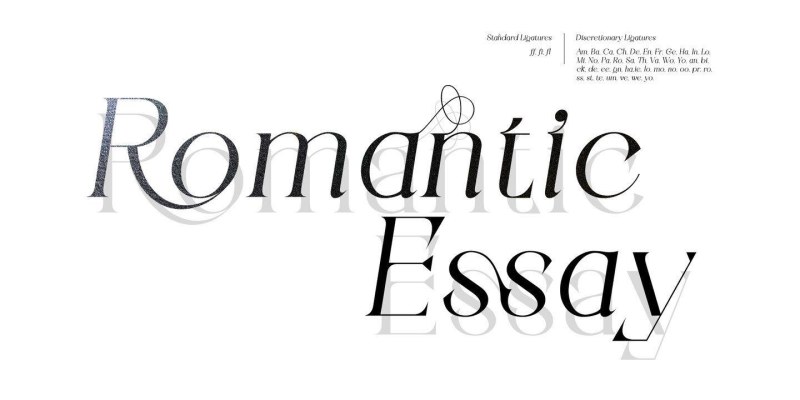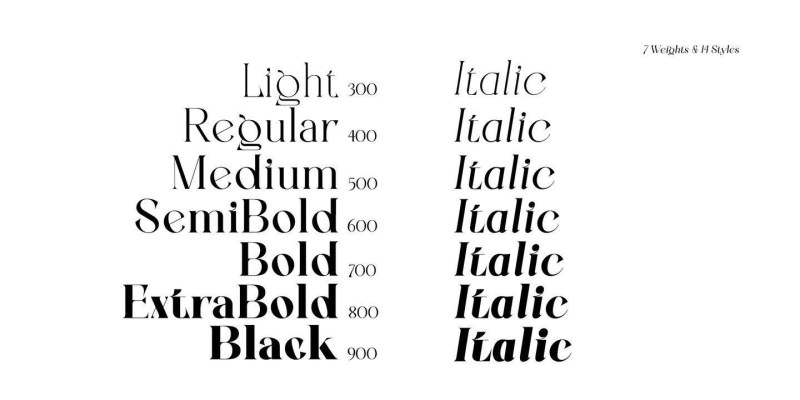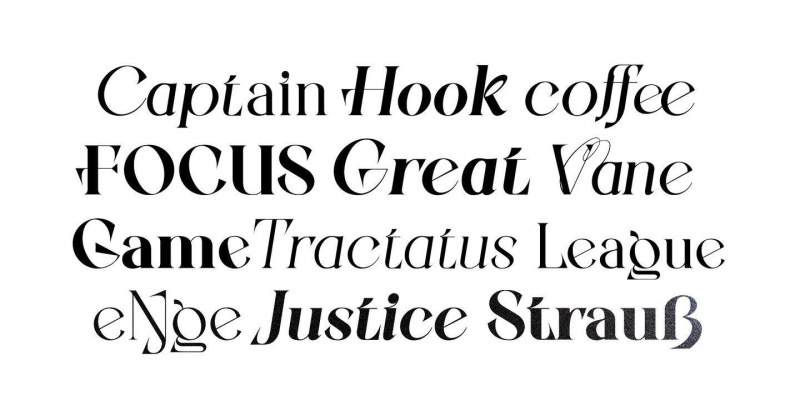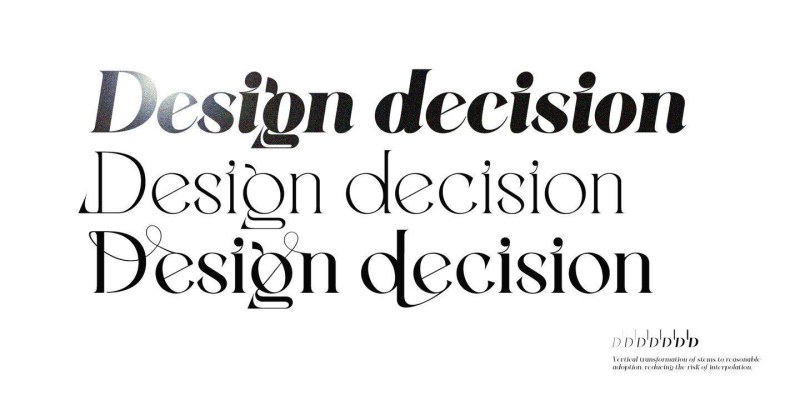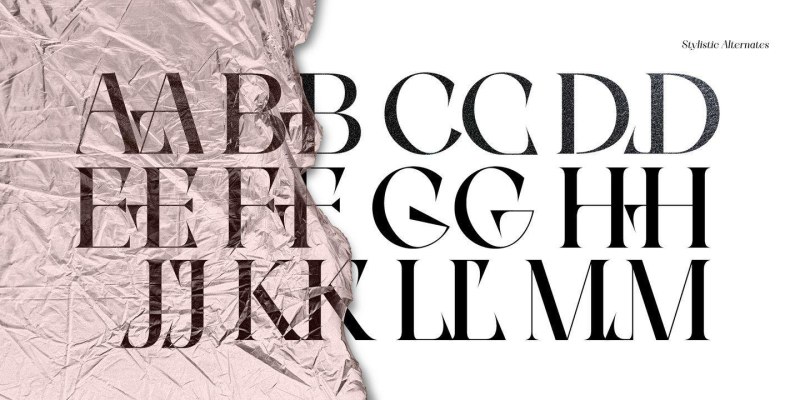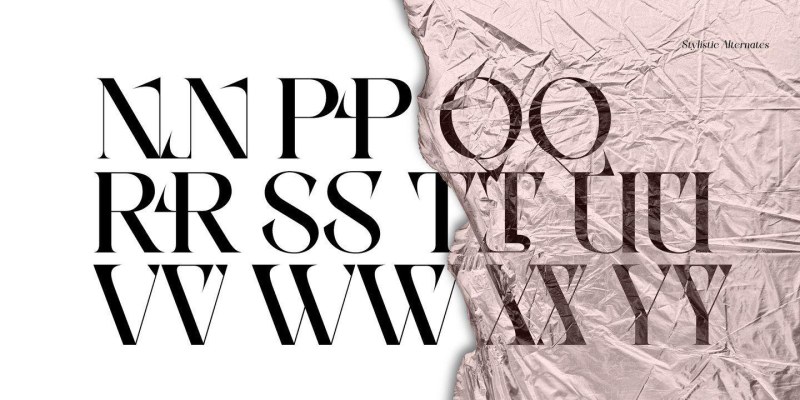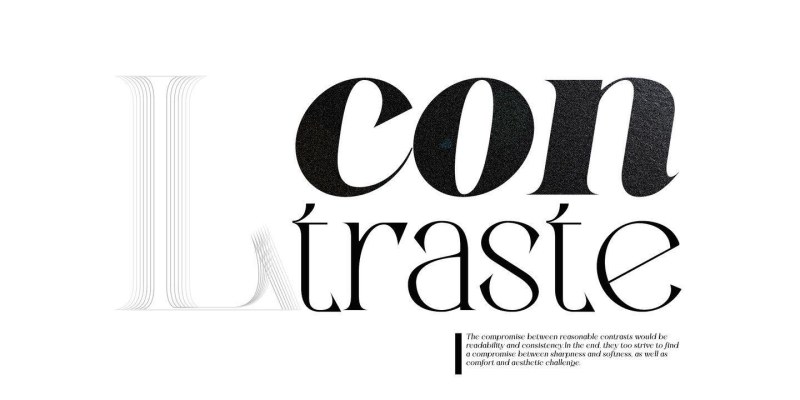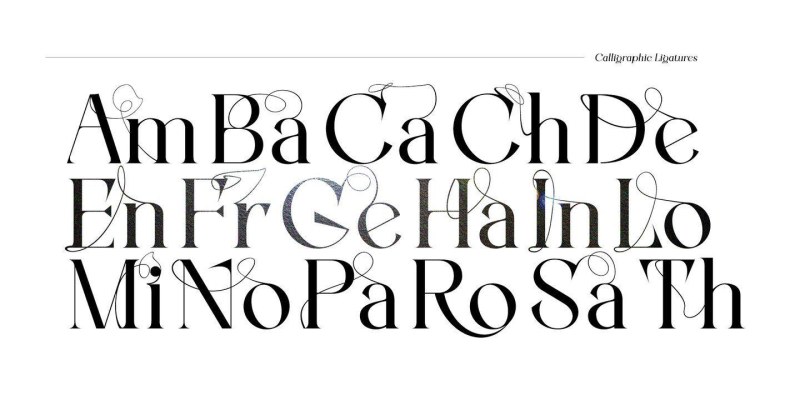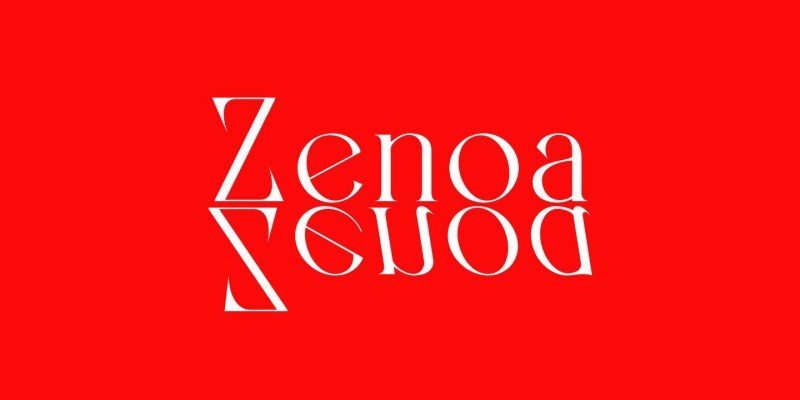
Zenoa Font Family
Zenoa Display Serif Font Family. They are sharp and sensitive, but connected-oriented. That’s why they’re designed by incorporating hook glyphs into an elegant serif style. Somewhat high contrast between vertical and horizontal, they reveal the strong individuality of each glyph, so you can create creative layouts. The meticulous design stands out so that readability and individuality can be expressed in harmony. And, these are the special excellences of this font family: Stylish Alternates and Ligatures where calligraphic subtlety is artistically connected. These OpenType features are decorative pleasures of using this font family more functionally. Please check first if the app you are using supports these features. They are easy to use in Adobe apps such as Photoshop and Illustrator.
Where Zenoa Font Family works best
Zenoa Font Family is built for size: event posters, hero headlines and billboard-style layouts.
High contrast display type like Zenoa Font Family reads instantly in thumbnails and motion graphics.
What is Zenoa Font Family good for?